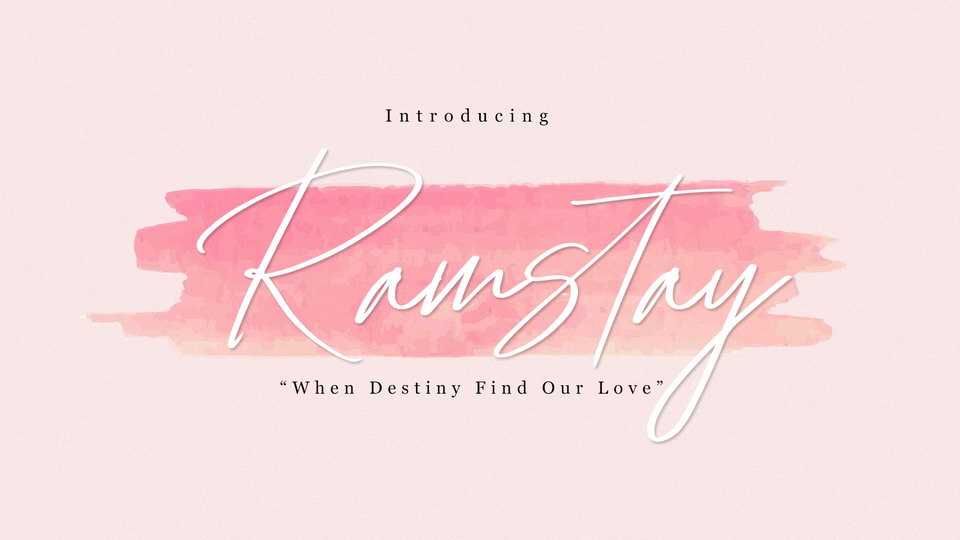
Download Ramstay font, a stylish, elegant, casual and modern signature script. Great to pair with another typeface, looks great to use in website template, blog, magazine, advertisements, digital signature, social media posts, and much more!
Designer: DM Letter Studio